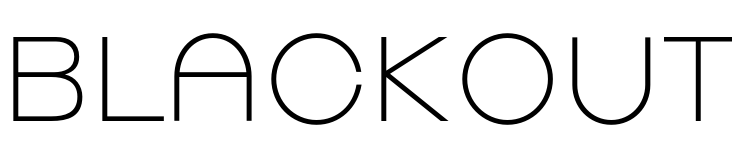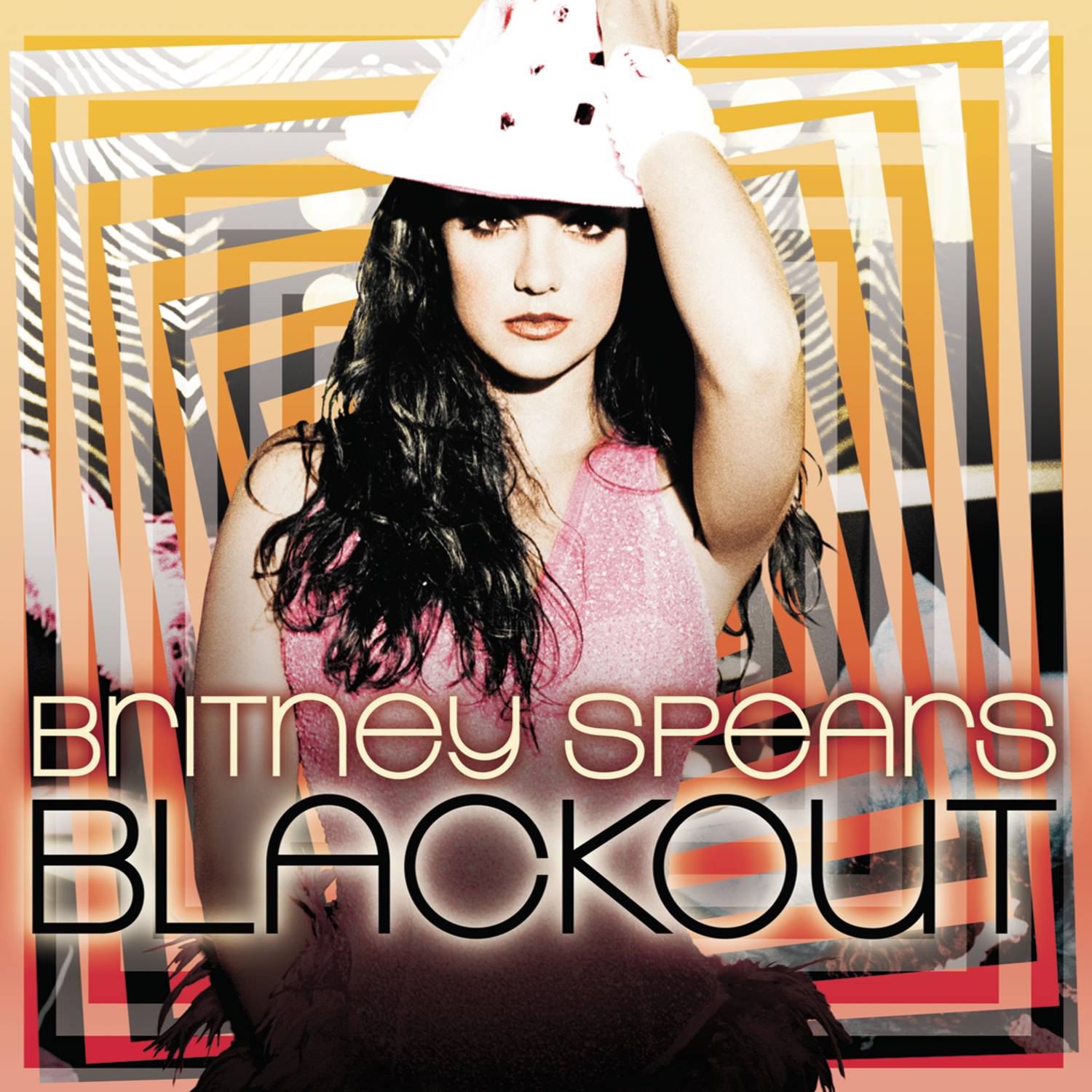
Blackout (Britney Spears) Font
Fonts in UseBlackout is the fifth studio album by American singer Britney Spears, released in 2007. It features a more electronic and dance-oriented sound, with hits like "Gimme More" and "Piece of Me".
The cover art of the album showcases a geometric sans-serif font called Linear, created by Fred Lambert for Elsner+Flake. Additional information about the font can be found here.